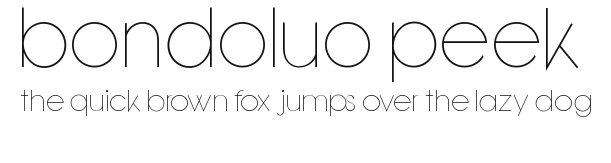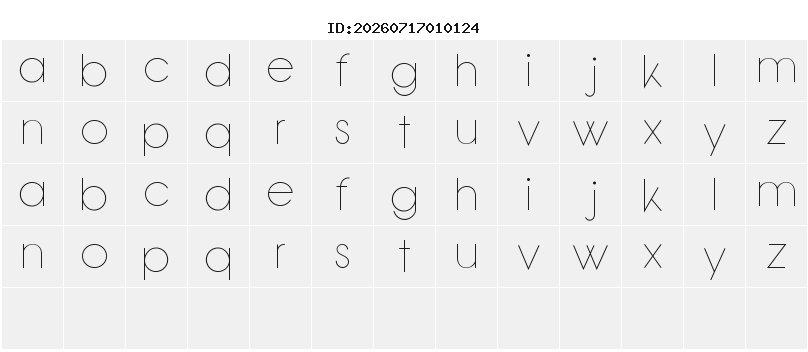
Bondoluo Peek Preview
• Font Name: Bondoluo Peek
• Font Style: Thin
• Full Font Name: ATO Bondoluo Peek
• Copyright: Font created by Alvaro Thomaz
• Designer: Alvaro Thomaz
About Bondoluo Peek.ttf
Bondoluo Peek.ttf is a modern, elegant sans-serif font designed for ultimate readability and visual harmony. Perfect for branding, headlines, web design, and print materials.